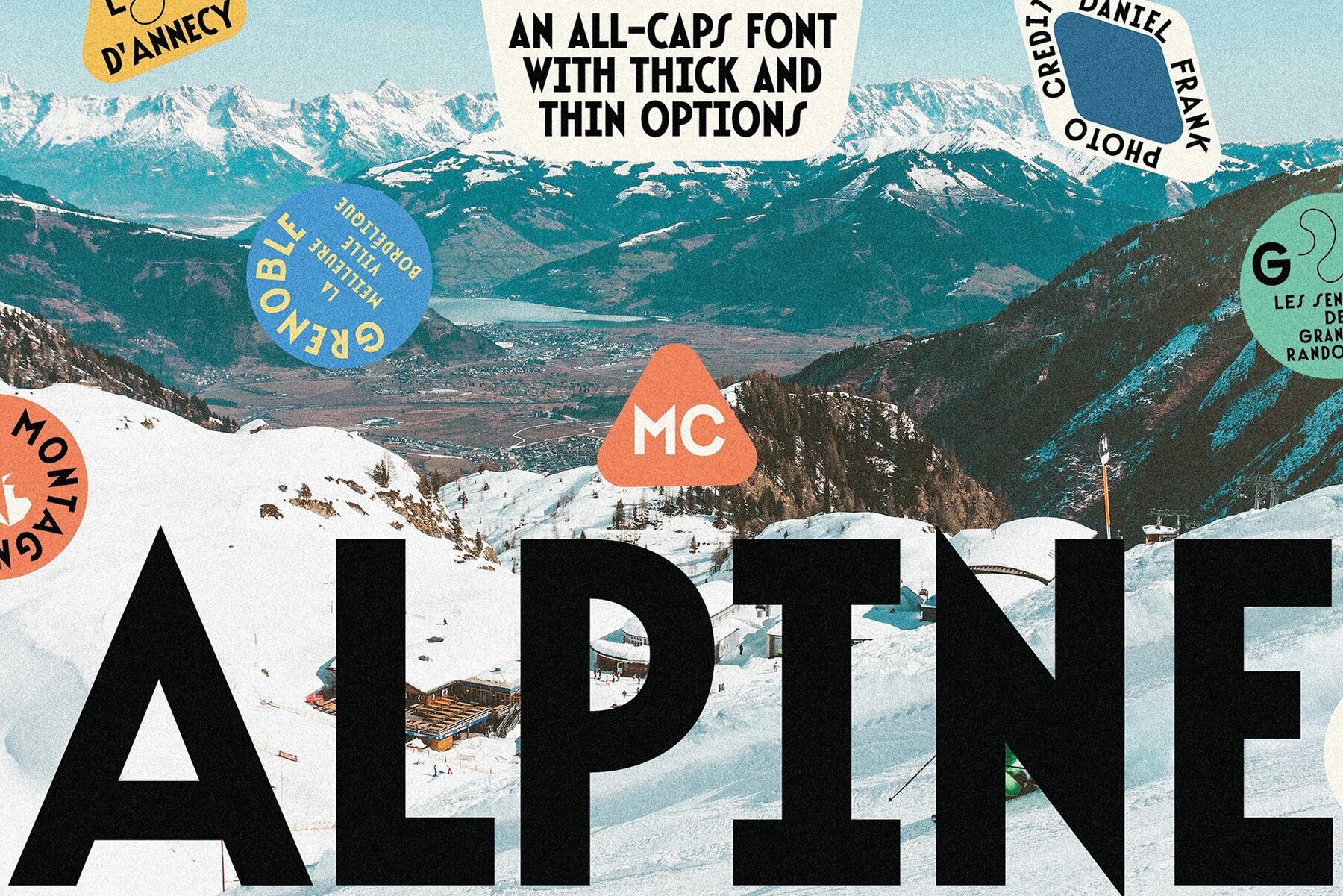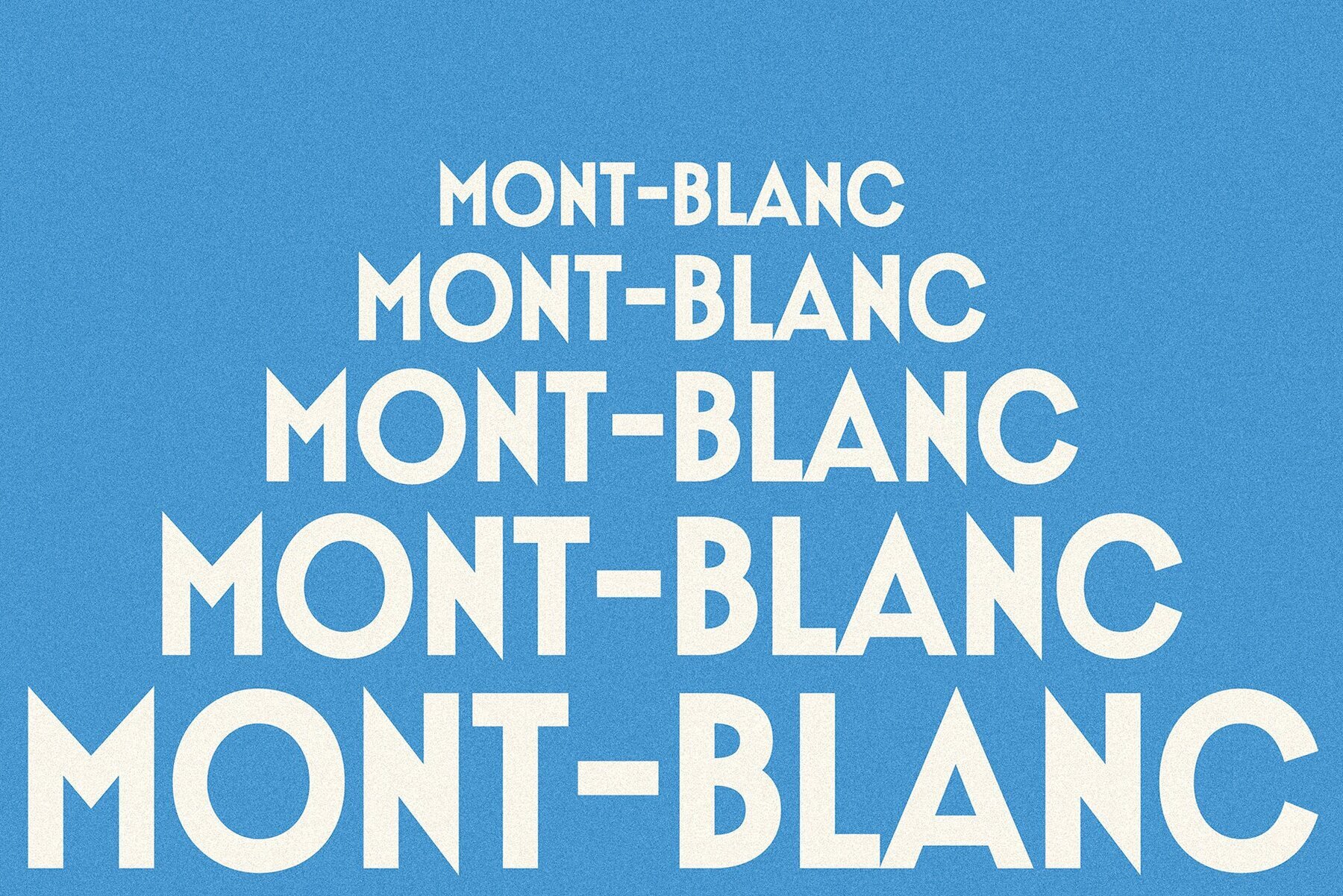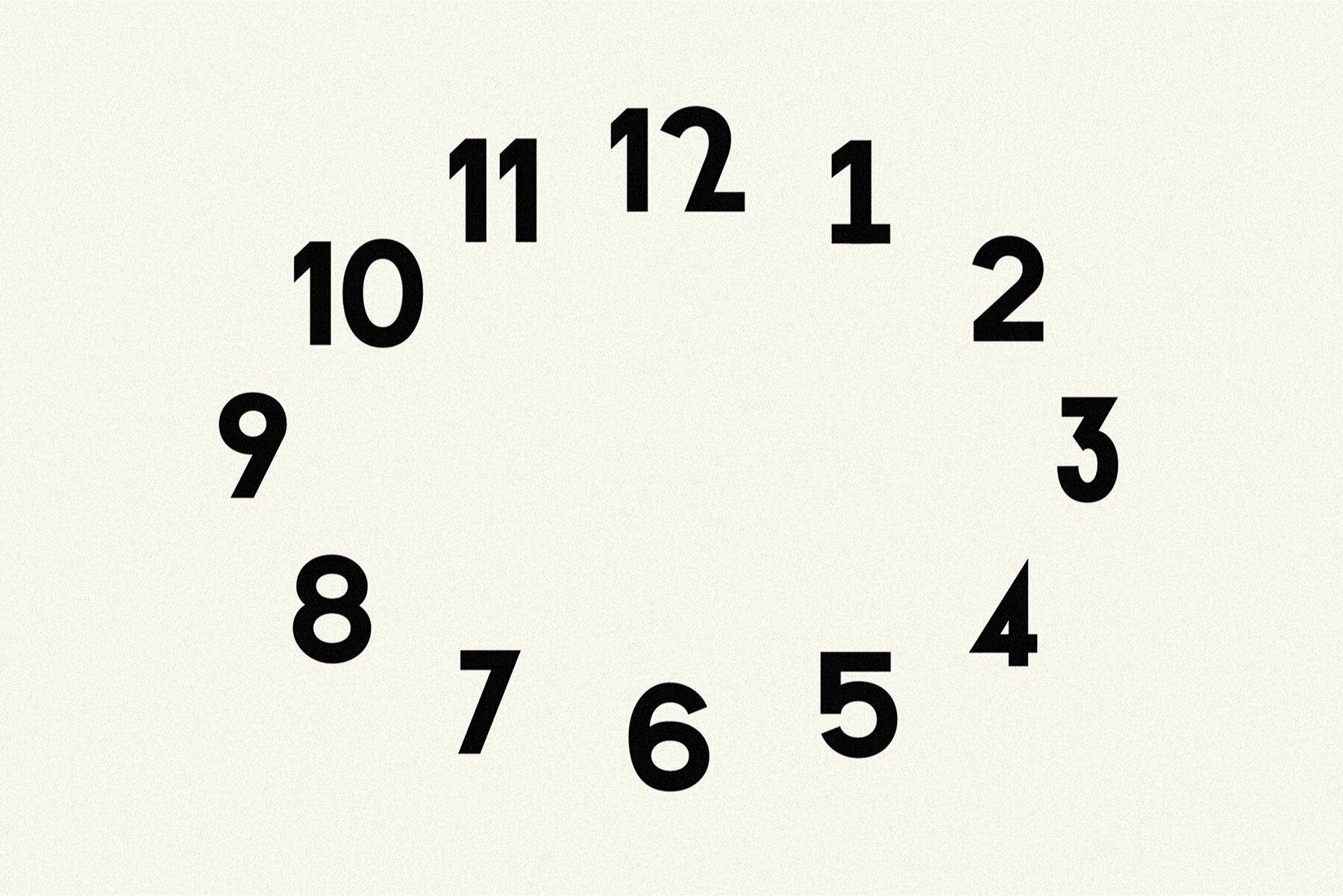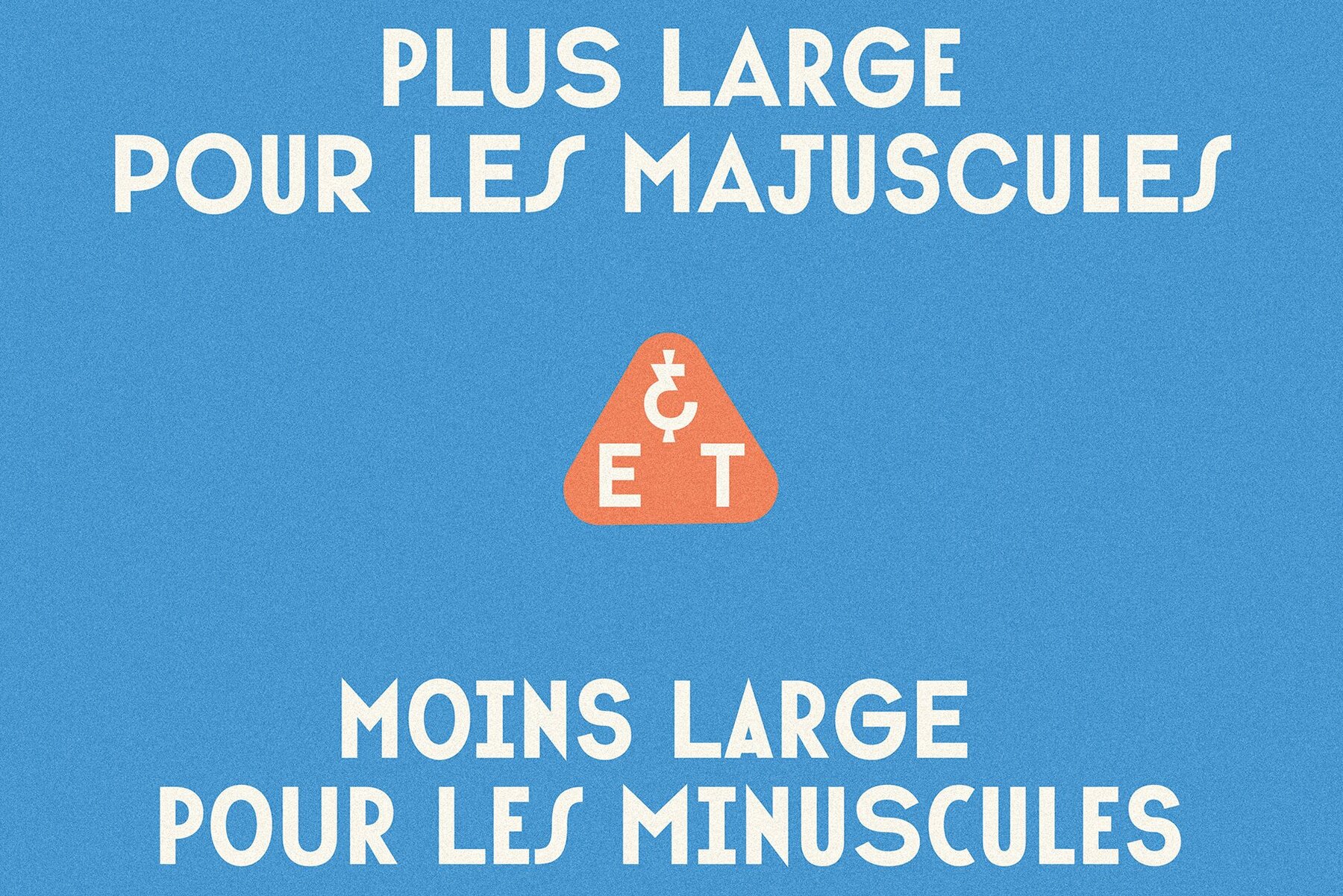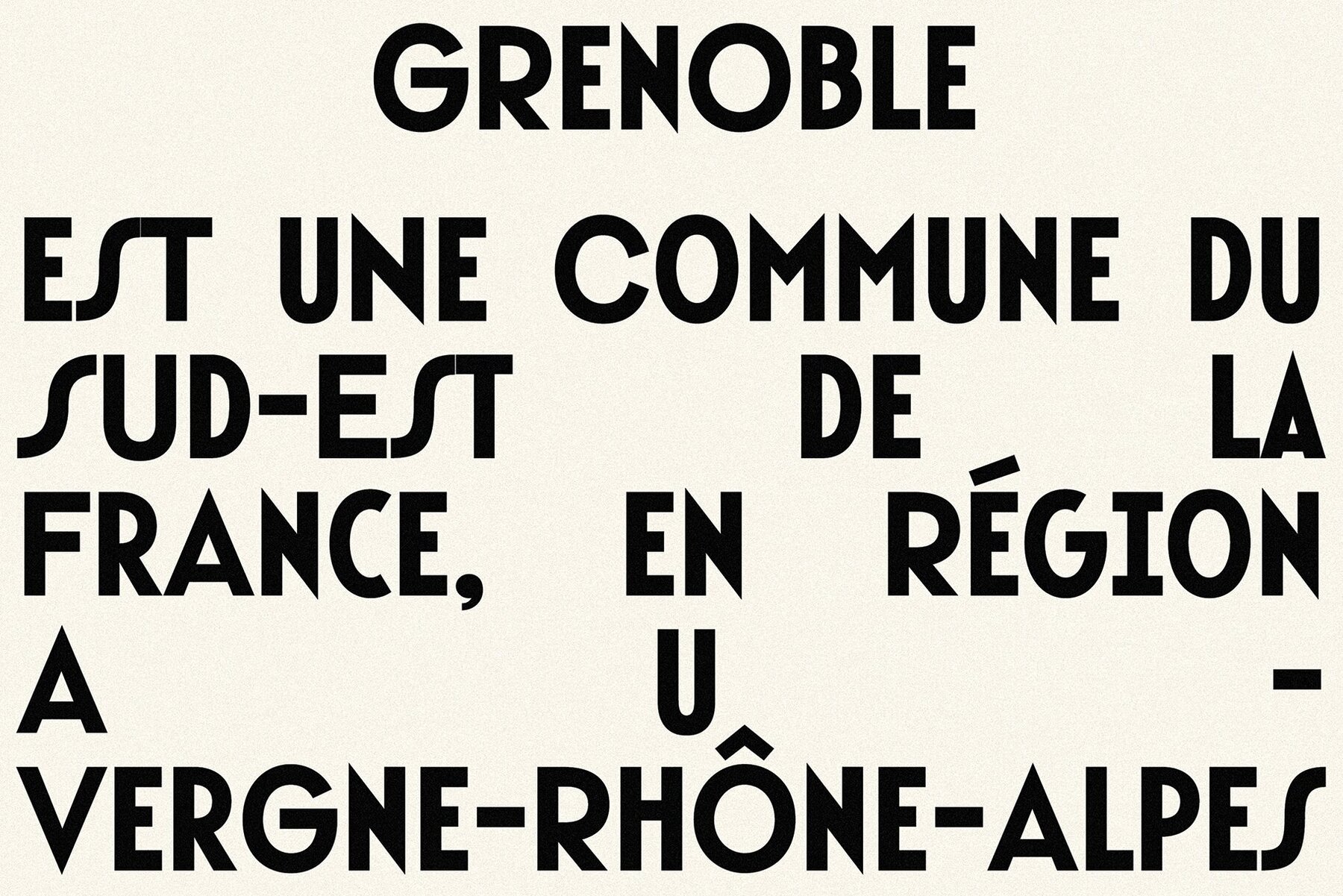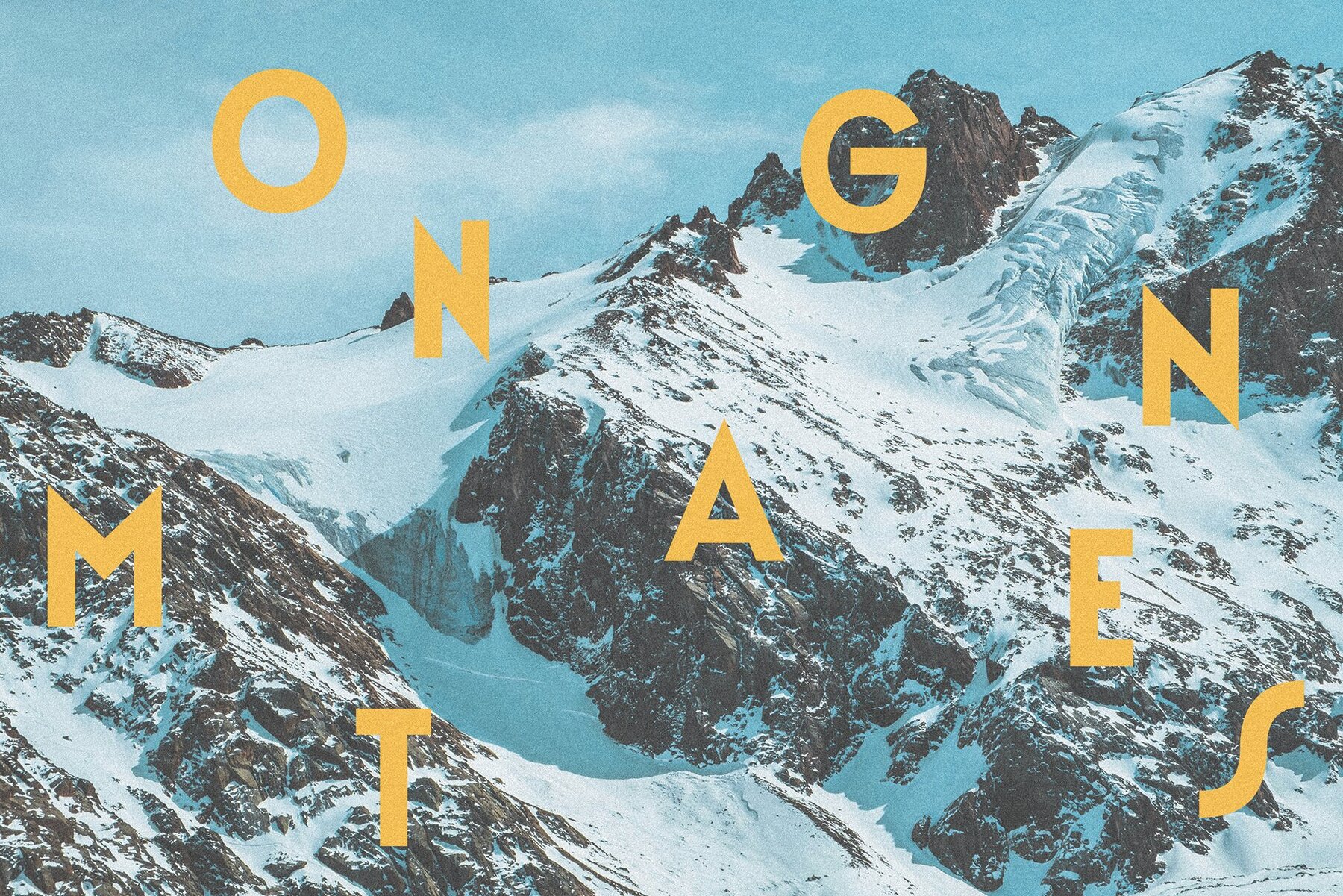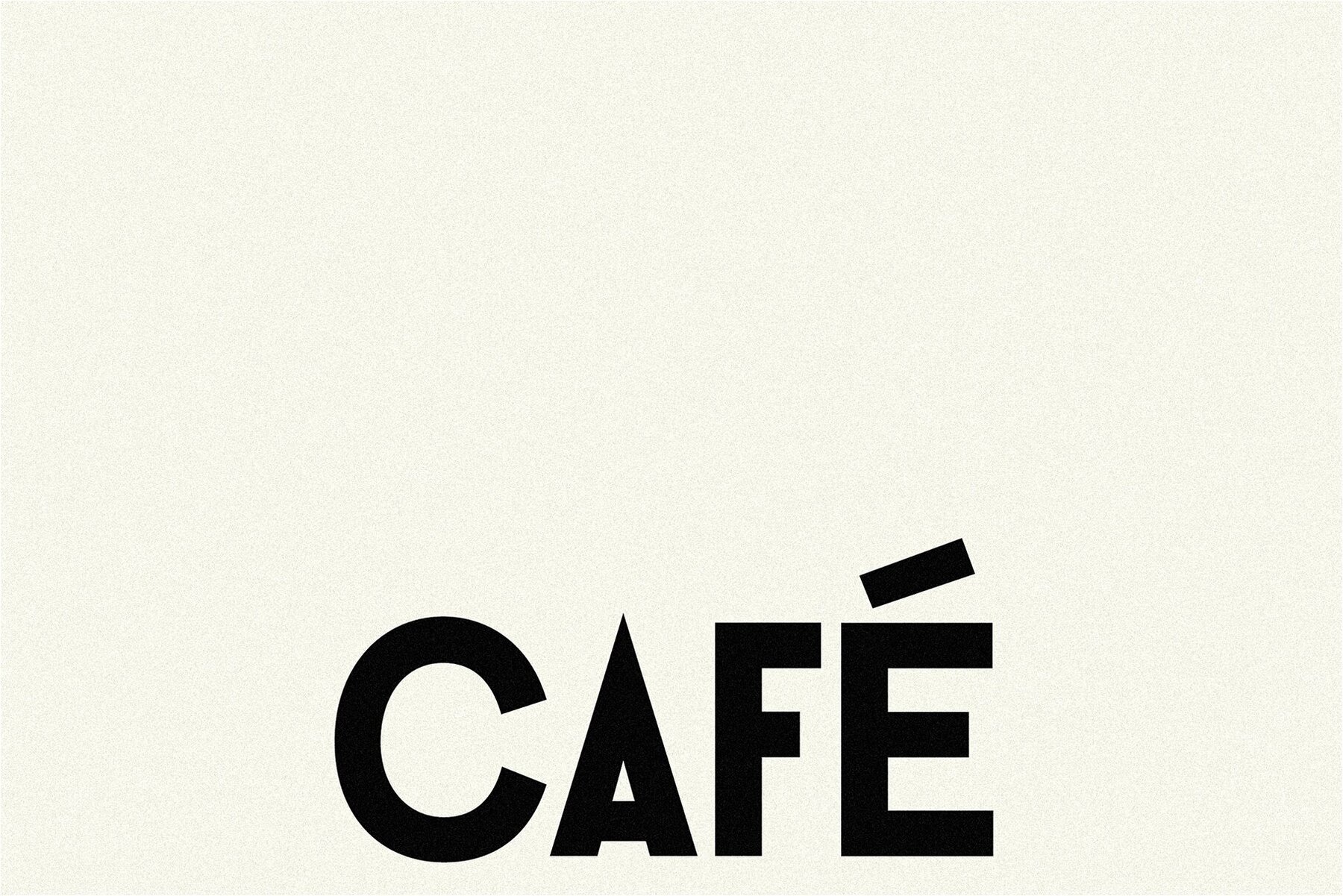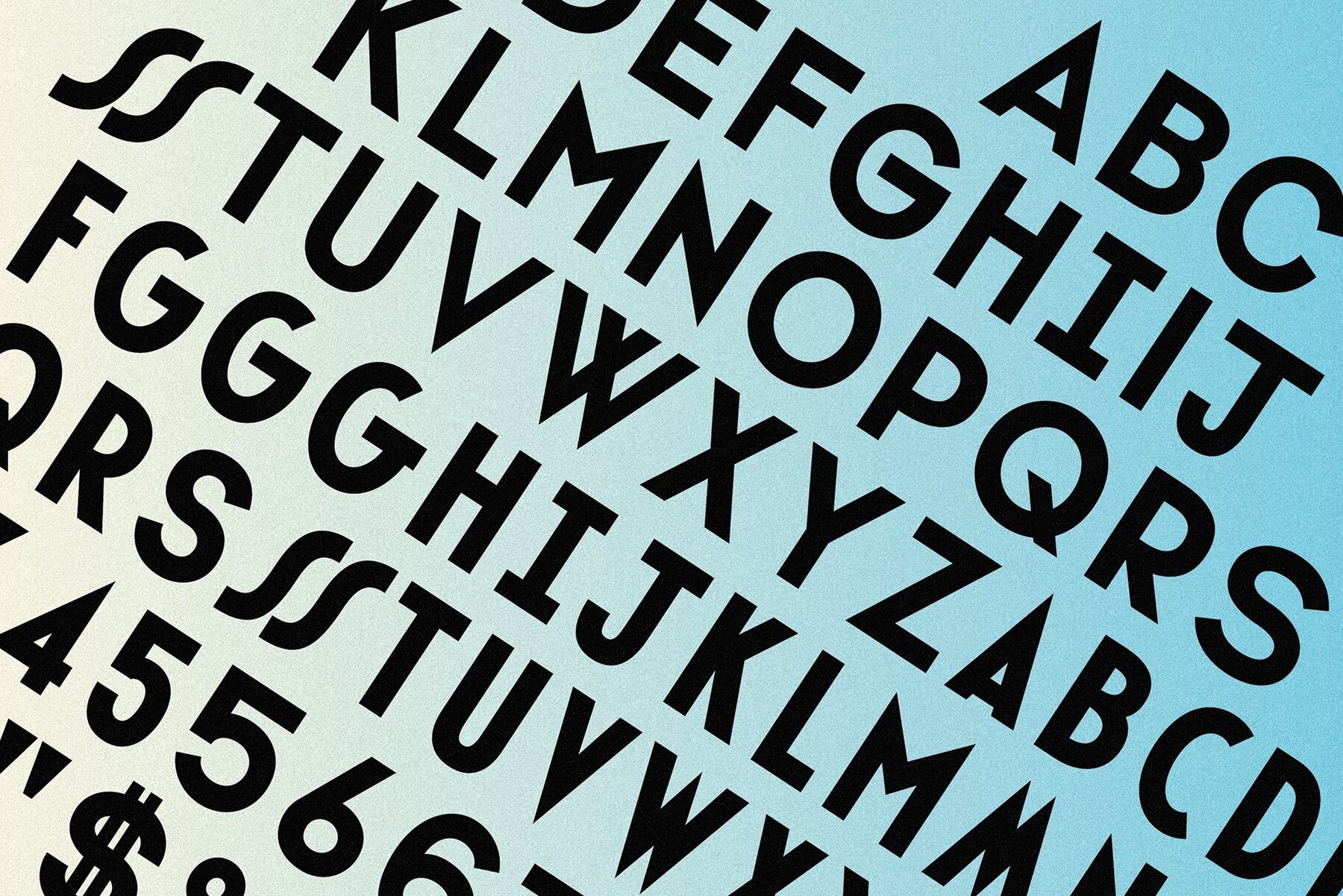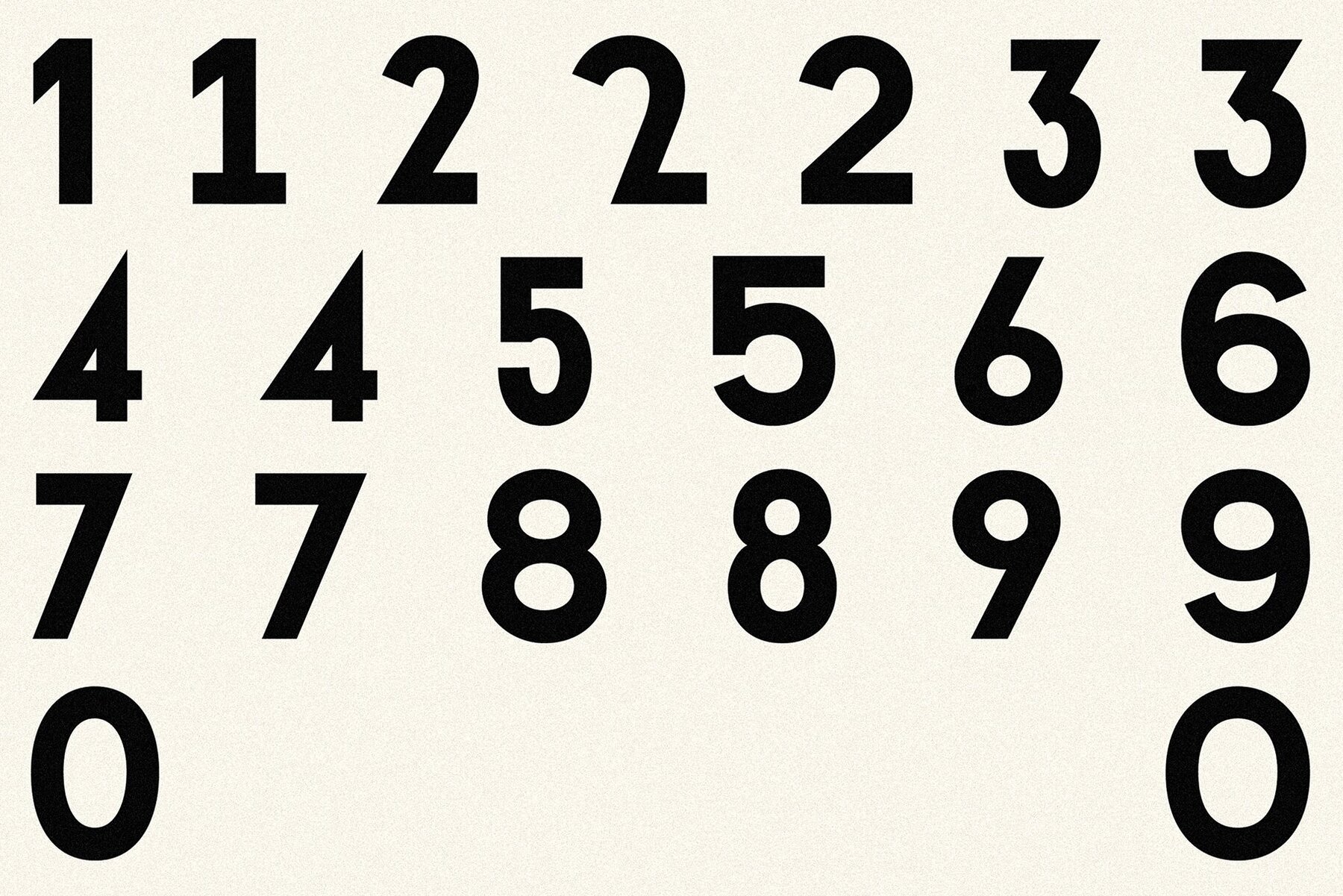
MC Alpine Font
MC Alpine
MC Alpine presents a blend of classic and modernist design, featuring distinct uppercase and lowercase varieties to offer designers dynamic typographic options. This bold sans-serif stencil font stands out in headlines and modern displays. The wide uppercase contrasts with the slender lowercase, facilitating versatile word compositions. The font’s blocky, geometric letterforms convey strength and structure, ideal for projects with an industrial or modernist flair. Whether crafting impactful titles or attention-grabbing brand identities, MC Alpine delivers a bold visual presence.MC Alpine: A Bold Stencil Sans-Serif